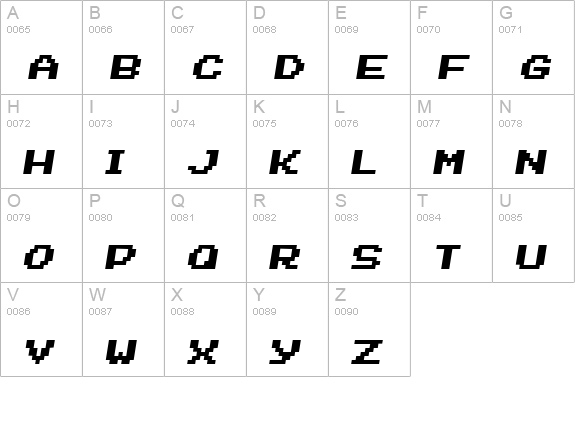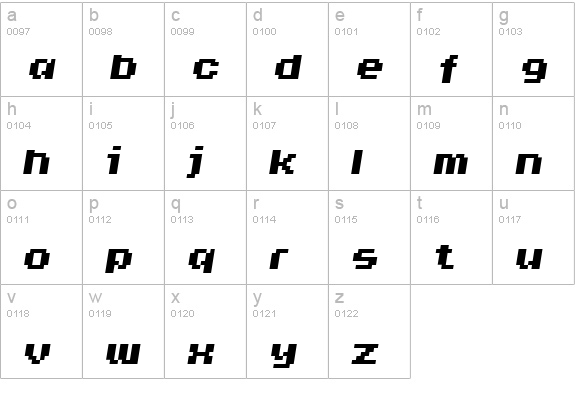
Invasion2000 Font Details
Introducing Invasion2000, a captivating and futuristic font that will transport your designs to another dimension. With its sleek and bold letterforms, this font exudes a sense of power and authority, making it perfect for projects that demand attention. Invasion2000 is not only visually striking but also incredibly versatile. Whether you're designing a poster for a sci-fi movie, creating a high-tech logo, or adding a touch of modernity to your digital presentations, this font will elevate your work to new heights. What's more, Invasion2000 is available for free! That's right, you can effortlessly download this incredible font at FontsMarket.com, a trusted source for high-quality fonts. Don't miss out on this opportunity to enhance your designs with a font that combines innovation, style, and accessibility. With Invasion2000, your creativity knows no bounds. Embrace the future of design and make a statement with this extraordinary font. Download it for free today at FontsMarket.com and unleash the power of Invasion2000 on your next project.